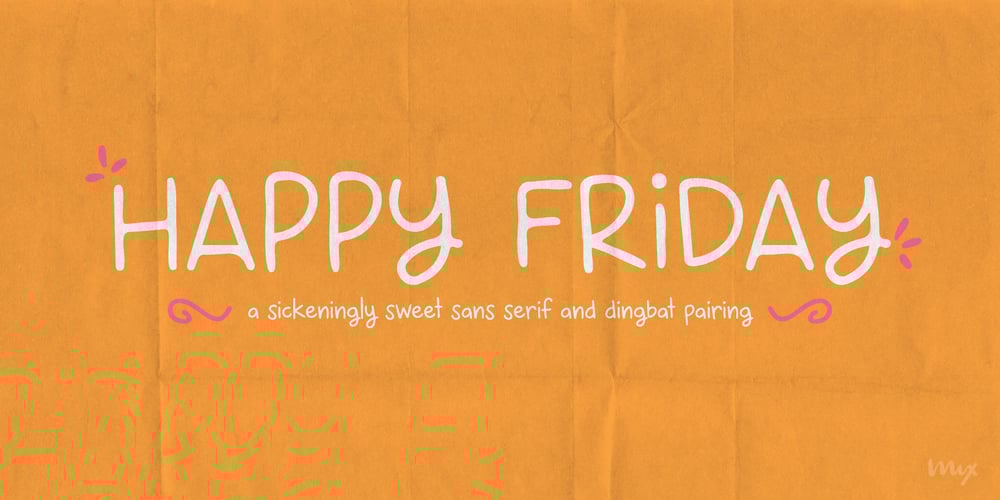
Happy Friday
Happy Friday font
Happy Friday Font Family was designed by Mikko Sumulong and published by Mix Fonts. Happy Friday contains 2 styles and family package options. HAPPY FRIDAY is a font that looks ahead to the long weekend. This typeface is cute and clean, but with an undercurrent of sickening sweetness. The font turns up the volume on your social media posts, making them stand out from the crowd. Along with HAPPY FRIDAY MIX, an adorable set of dingbats made up of doodles and swashes, this font pair is perfect for your marketing collaterals and your at-home DIY projects. MIX HAPPY FRIDAY comes with the following glyphs: ABCDEFGHIJKLMNOPQRSTUVWXYZ abcdefghijklmnopqrstuvwxyz 0123456789 !@#$%^&*()`~♥✿•· ÷×+−±≈=≠≥≤[]<>:;’”,.|/?{}“”‘’-–—_ …‚„©®™‹›«»°¹²³ªº¡¿₱¢€£¥½¼¾¶§№† ÁÀÂÄÃÅĂĀĄÆĆĈČÇÐĐÉÈÊËĖĒĘĜĤIÍÌÎÏĪĮĴŁŃÑŇ ÓÒÔÖÕŌŐØŒŔŘŚŜŠŞȘŤȚÚÙÛÜŮŬŪŰŲẂẀŴÝŶŸŹẐŽŻÞẞ áàâäãåăāąæćĉčçðđéèêëėēęĝĥıíìîïīįĵłńñň óòôöõōőøœŕřśŝšşșťțúùûüůŭūűųẃẁŵýŷÿźẑžżþß MIX HAPPY FRIDAY MIX (Dingbats) comes with the following glyphs: ABCDEFGHIJKLMNOPQRSTUVWXYZ abcdefghijklmnopqrstuvwxyz 0123456789 !@#$%^&*()